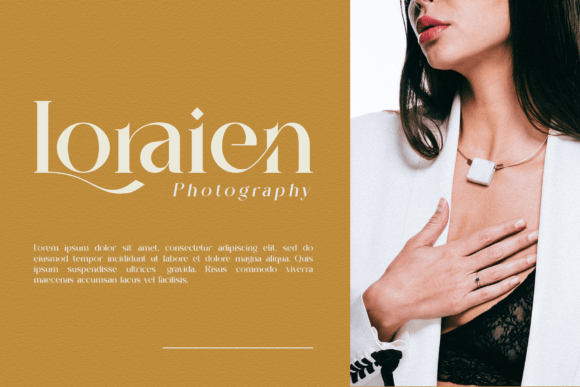
Dive into the world of sophistication and allure with Attera Font, a captivating serif font family known for its exquisite beauty and unmatched elegance. Each intricate character is crafted with artistry and precision, exuding a timeless aura that elevates any design project.
Unleash your creativity and make a lasting impression with Attera Font. Its balanced and smooth curves entice the eye, while its distinctive serifs add a touch of classic charm. Whether you're designing an ornate wedding invitation, a sleek company logo, or a captivating movie title, Attera Font effortlessly elevates your work to new heights of sophistication.
Immerse yourself in the endless possibilities offered by Attera Font. Its versatility knows no bounds, seamlessly adapting to a myriad of design styles and concepts. From the bold and contemporary to the understated and timeless, Attera Font harmoniously complements your vision and transforms your ideas into reality.
With Attera Font, your designs transcend the ordinary and enter the realm of extraordinary. Let your imagination soar as you craft eye-catching business cards that leave an indelible mark, or create book covers that beckon readers with their captivating allure. The possibilities are limitless, and your creativity is the only guiding force.
Step into the spotlight and command attention with Attera Font. Its distinct character set, featuring graceful curves and sharp angles, ensures that your designs stand out from the crowd. Whether you're crafting a captivating brand name or designing a movie title that resonates with audiences, Attera Font guarantees a lasting impact.
Don't settle for ordinary fonts. Embrace the extraordinary with Attera Font. Its timeless beauty and versatility make it the perfect choice for designers seeking to create works of art that captivate and inspire. Join the ranks of creative visionaries who have discovered the power of Attera Font and elevate your designs to new heights of excellence.